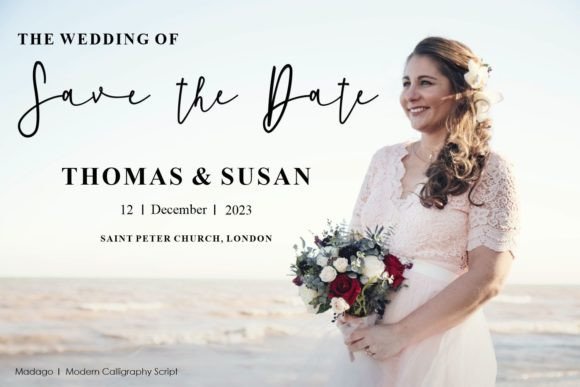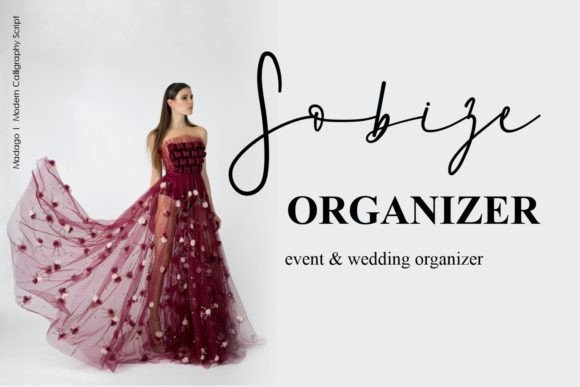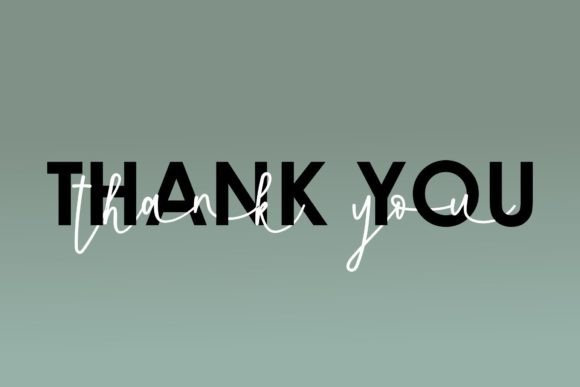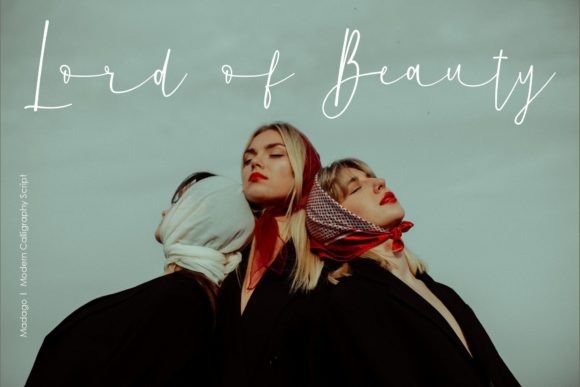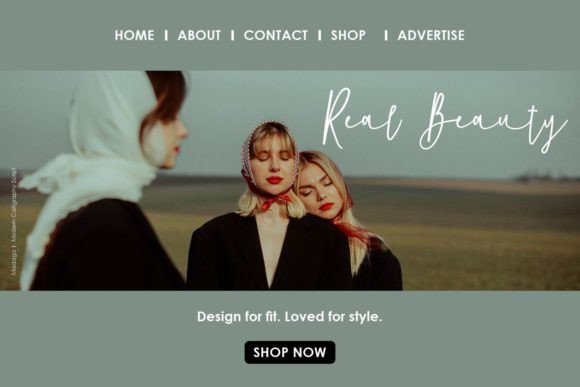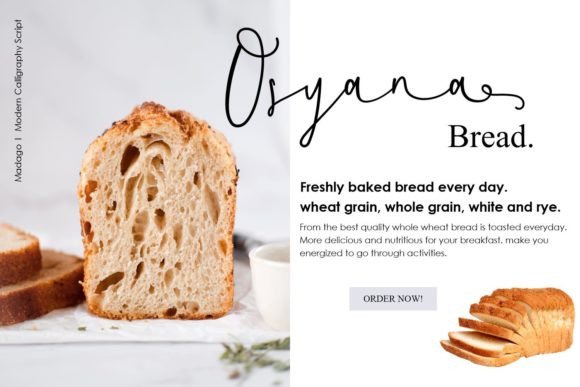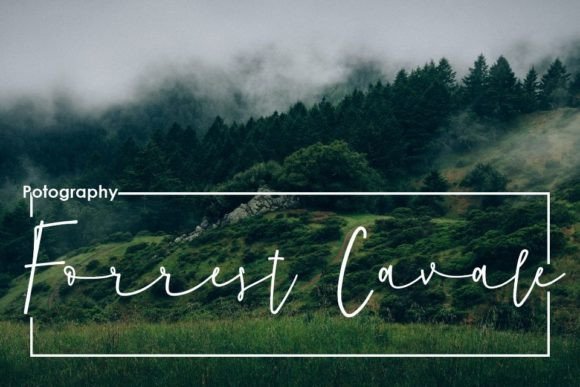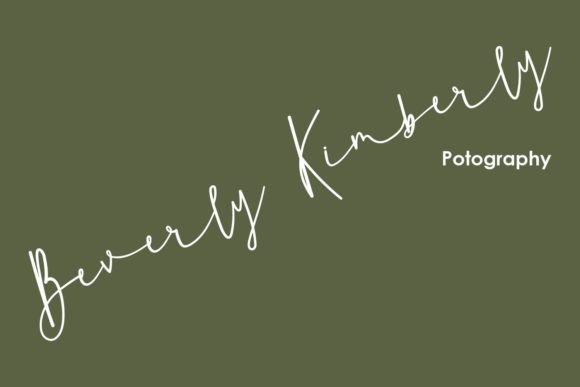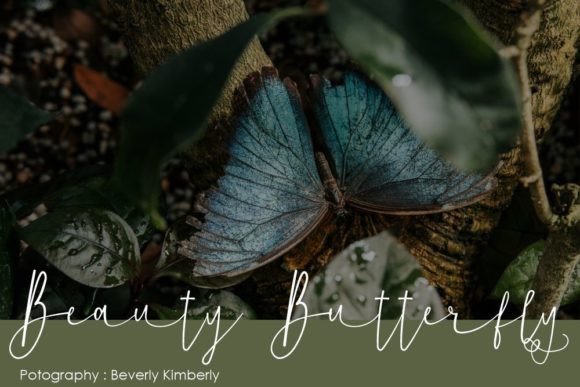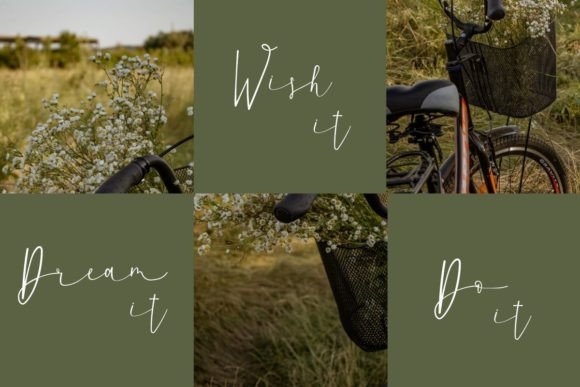
Madago Font
About Madago Font Download
The Madago Font Download is a charming and elegant handwritten script that combines sophistication with warmth. With its graceful strokes and smooth curves, Madago is designed to add beauty and authenticity to any creative project. Whether you are creating wedding invitations, greeting cards, or branding designs, this typeface offers a timeless and versatile solution.
A Charming and Elegant Script Font
The Madago script font blends elegance with a natural handwritten feel. As a result, it creates balance between stylish sophistication and a friendly approach. Furthermore, its detailed letterforms adapt well to both formal and casual design contexts, making it a flexible choice for designers.
Handwritten fonts always add a heartfelt touch to stationery. The Madago Font is perfect for wedding invitations, thank you cards, seasonal greetings, and birthday stationery. Because of its elegant strokes, every card feels personal and meaningful. In addition, it ensures your stationery leaves a lasting impression.
Branding and Logo Design with Madago Font
Typography defines the character of a brand. The Madago handwritten font is an excellent choice for logos, packaging, and product branding. Its elegant yet approachable style makes it especially effective for boutique businesses, beauty labels, and artisanal products. Therefore, it helps brands look professional and stylish at the same time.
Posters, Quotes, and Editorial Projects
The Madago Font Download also shines in posters, book covers, magazines, and inspirational quotes. Its flowing handwritten design ensures maximum readability while adding sophistication. Consequently, it’s a reliable choice for editorial and promotional layouts.
In the modern digital world, fonts must perform well across platforms. The Madago typeface integrates seamlessly into Instagram posts, YouTube thumbnails, Pinterest graphics, and blogs. Because of its elegant handwritten charm, it adds warmth and authenticity to online projects.
Why Designers Choose Madago Typeface
Designers value fonts that offer versatility along with style. The Madago handwritten script is both charming and easy to apply, making it popular with professionals and hobbyists alike. Moreover, its timeless quality ensures that it remains a dependable option for years to come.